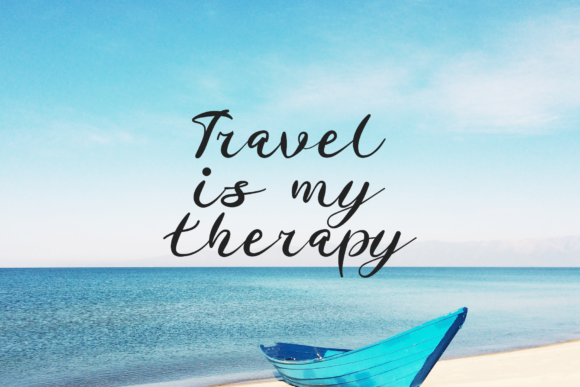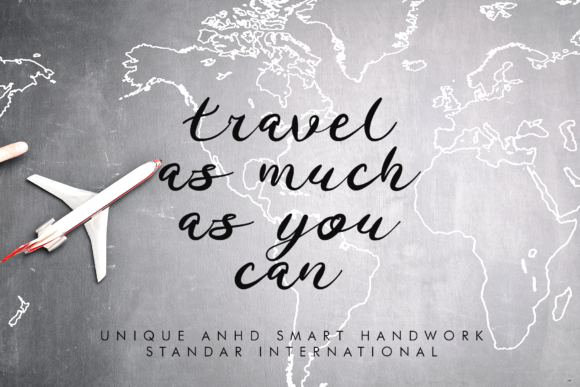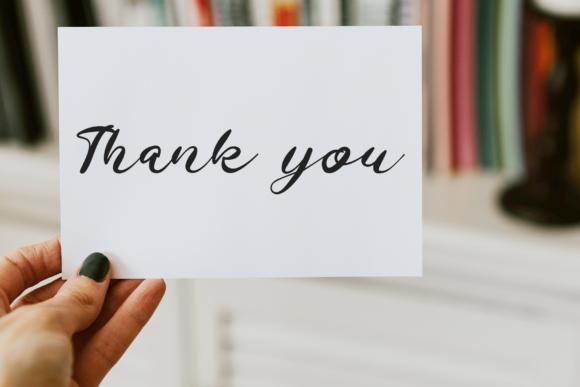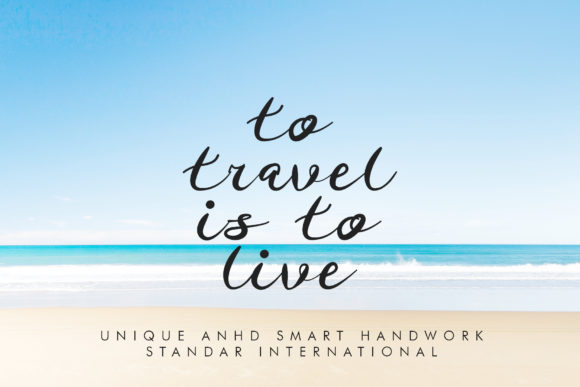
About Amsterdam Font
Amsterdam is a great handwritten font. It features a casual style that makes it perfect for logos, books, invitation cards, t-shirts, and much more.